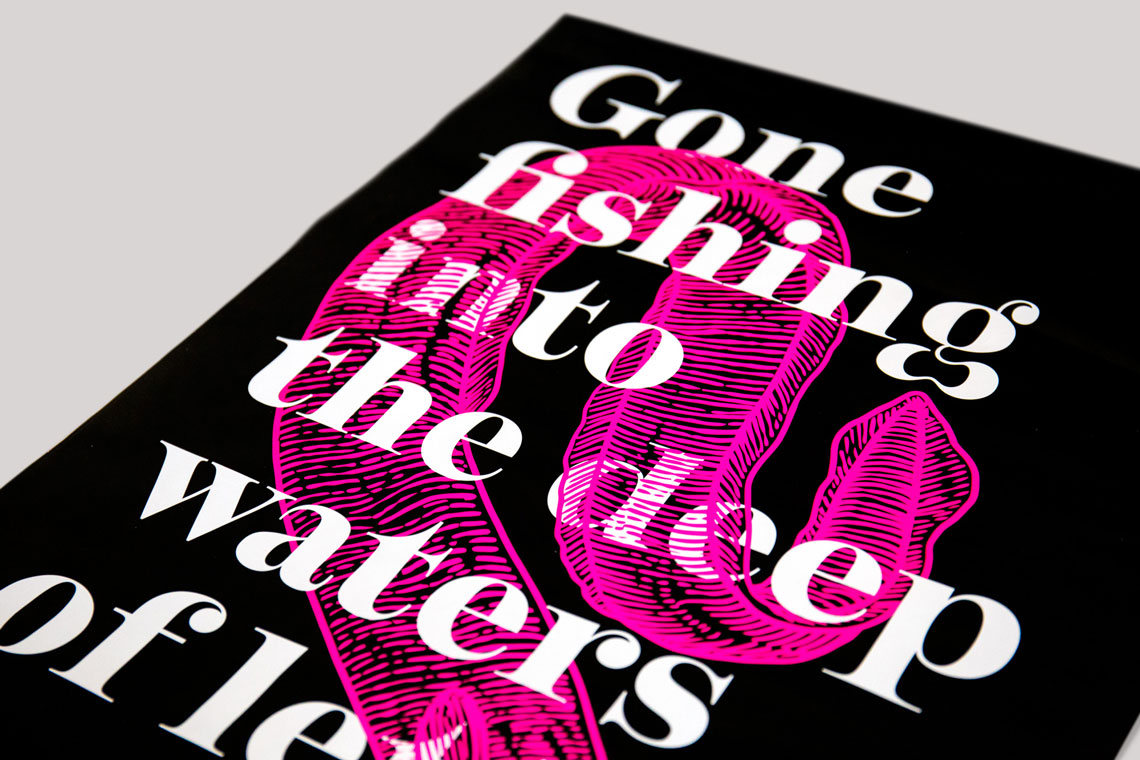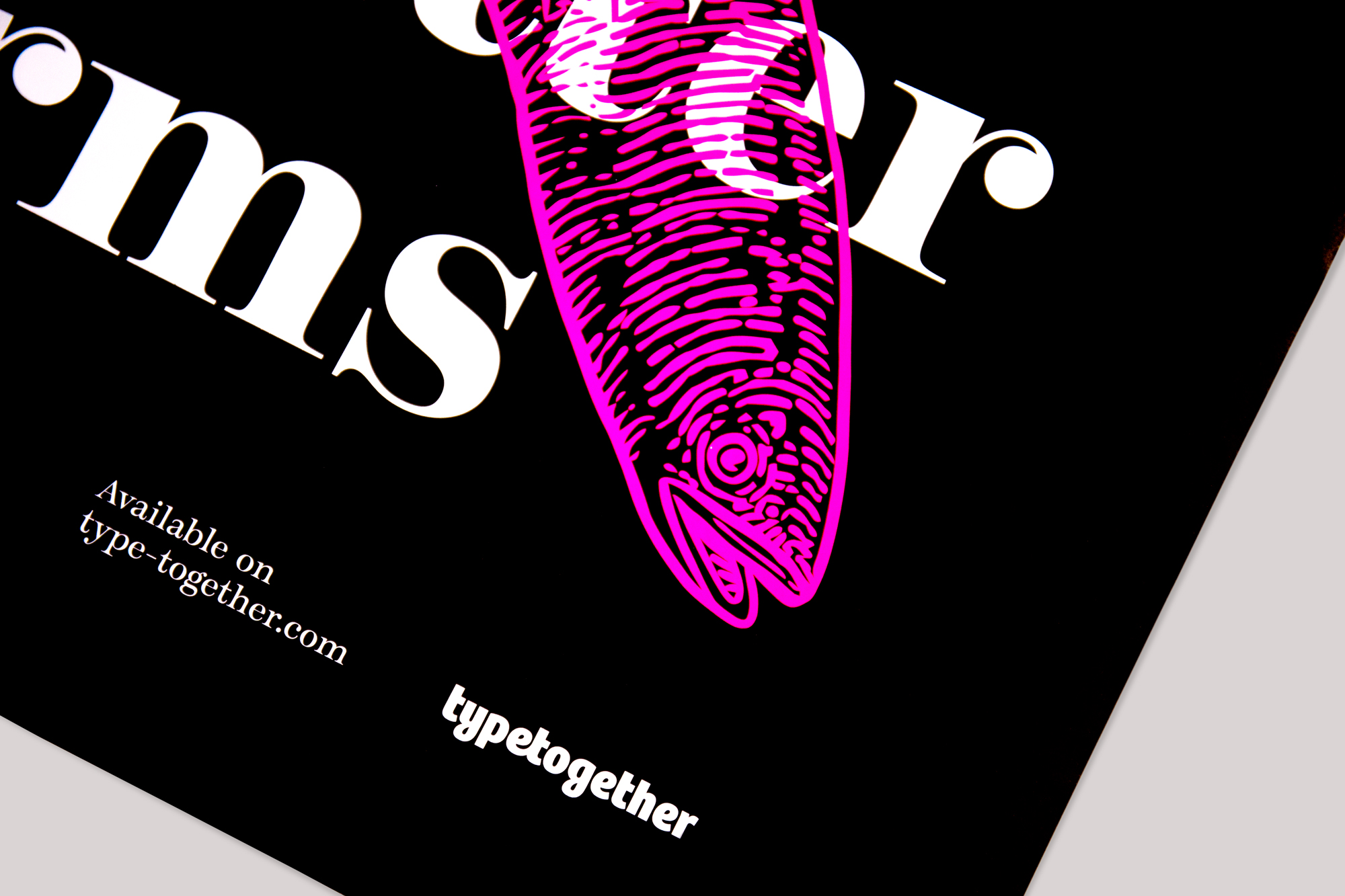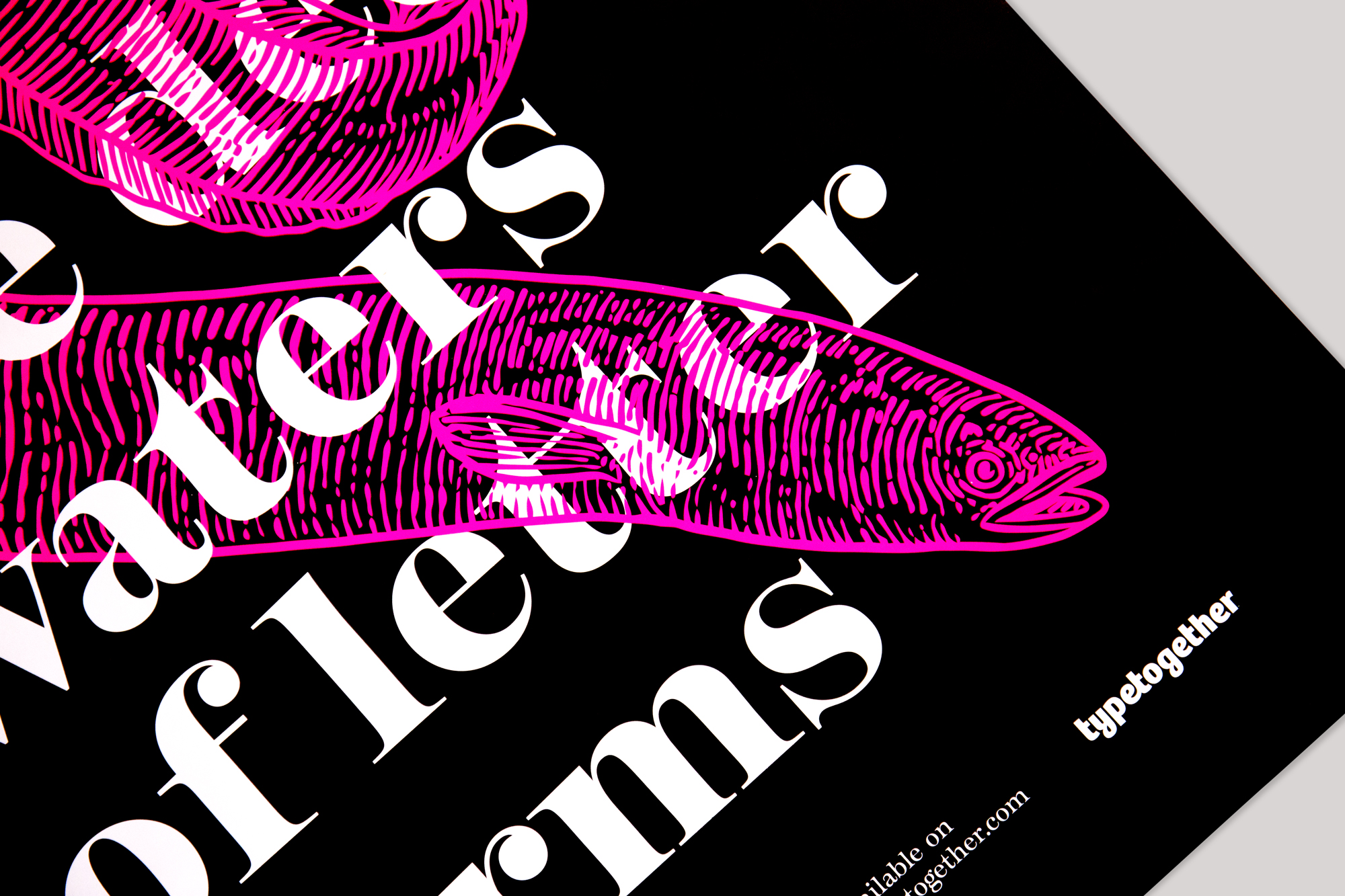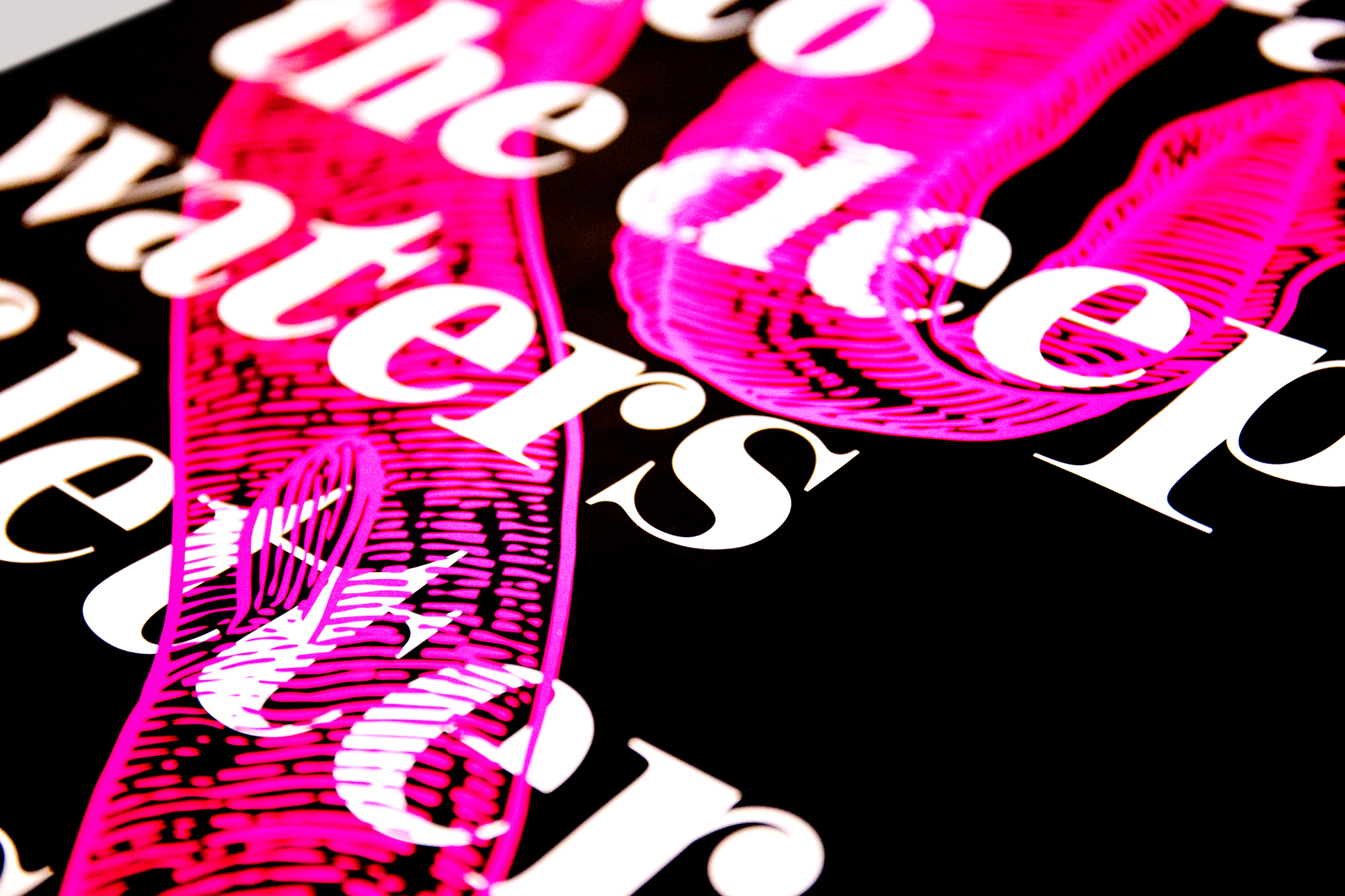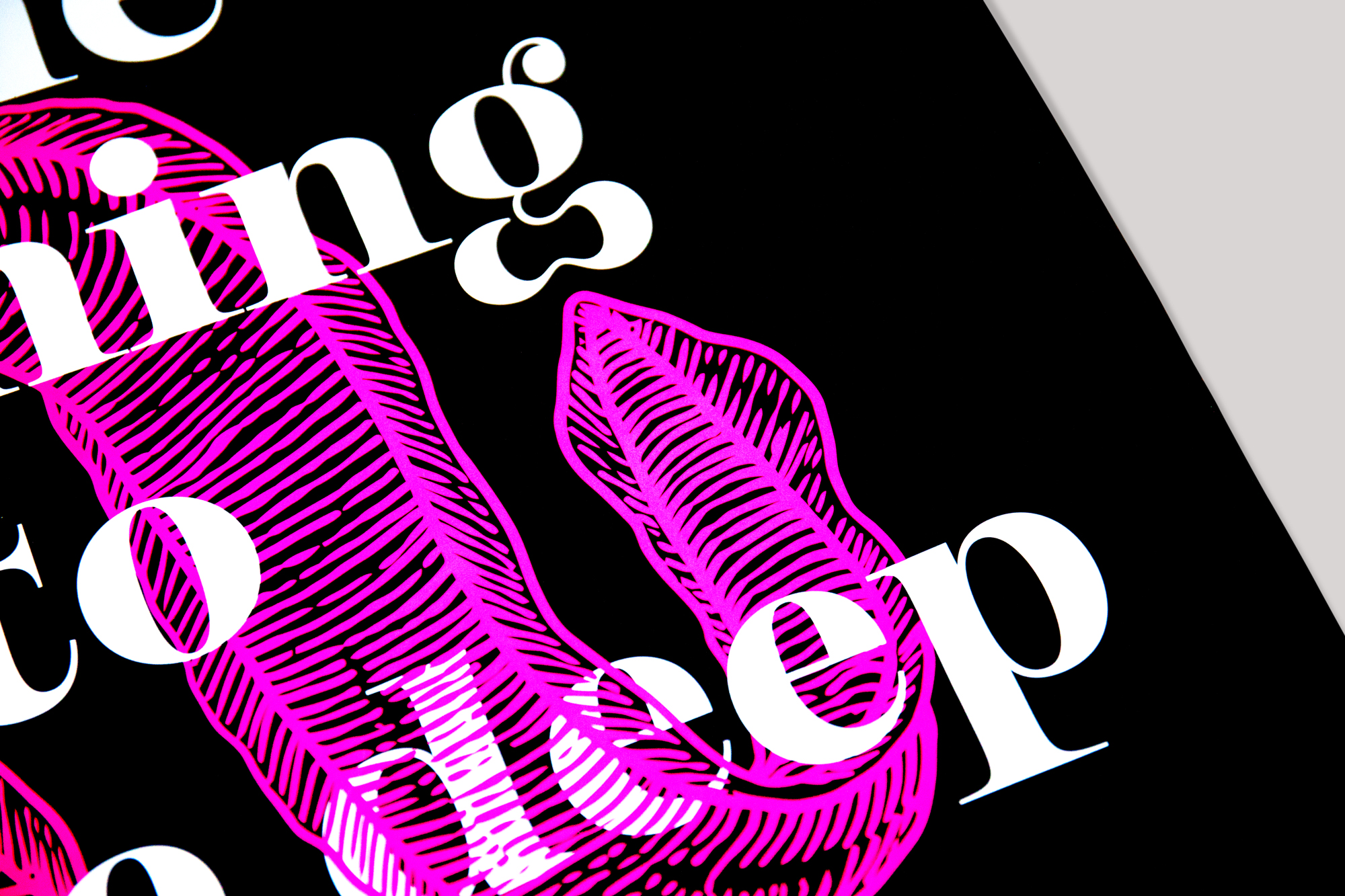
Temeraire poster
In collaboration with TypeTogether, talented French designer Quentin Schmerber designed this beautiful poster featuring his very own typeface, Temeraire. Based in English lettering traditions, Temeraire rescues disparate styles from echoes in time. This serif font family is meant for beholding text in books, magazines, and large formats rather than being able to ignore it.